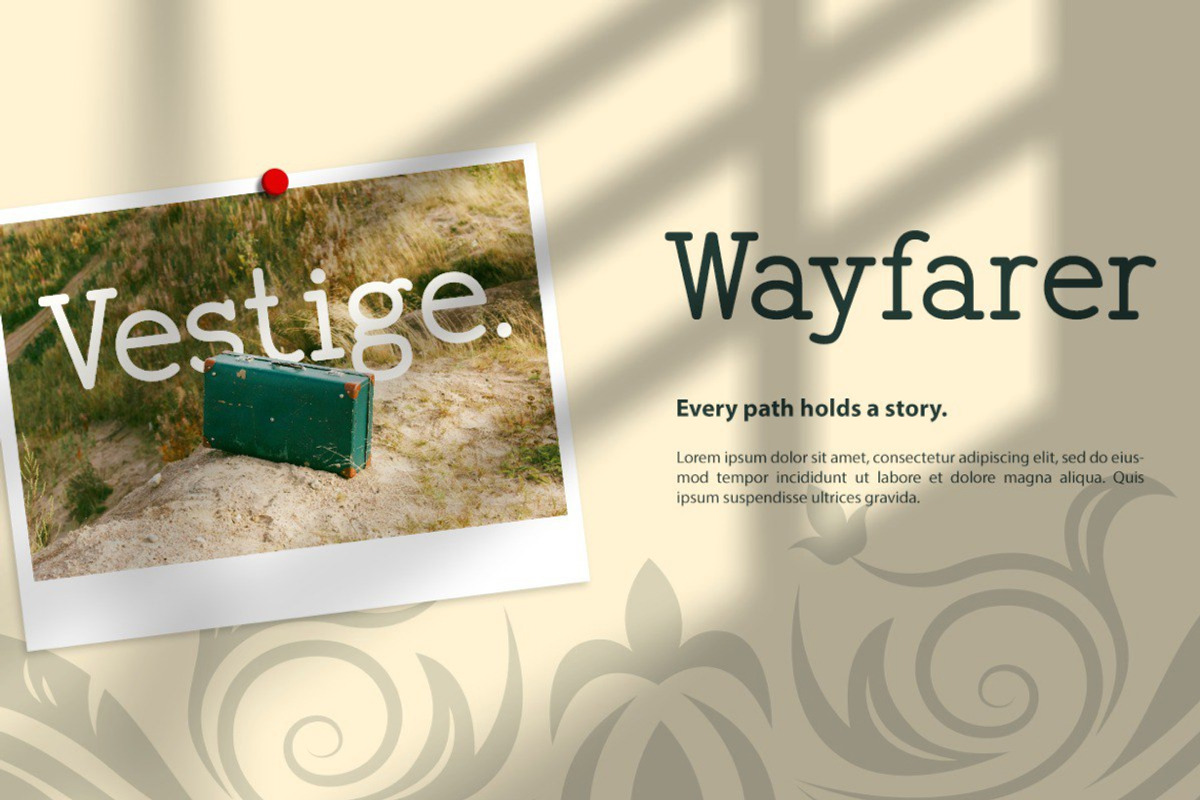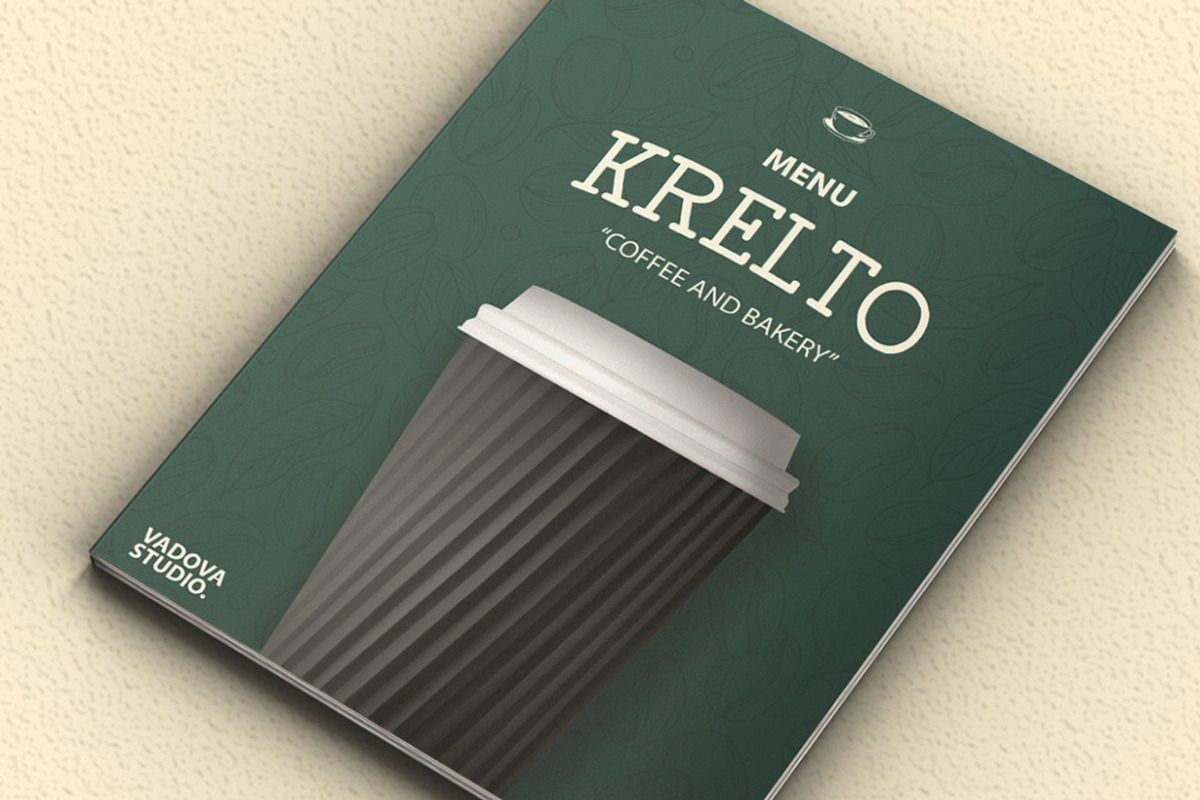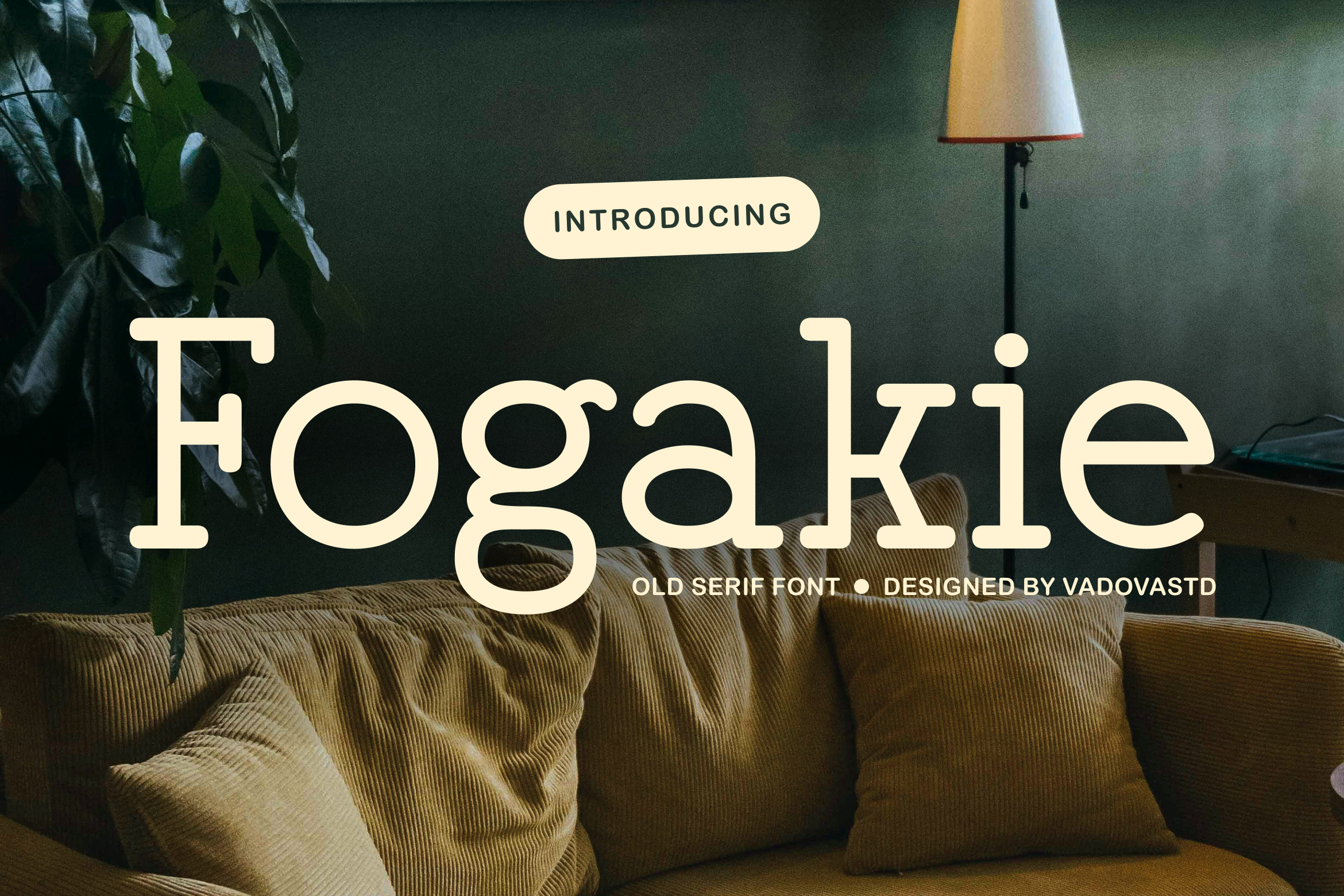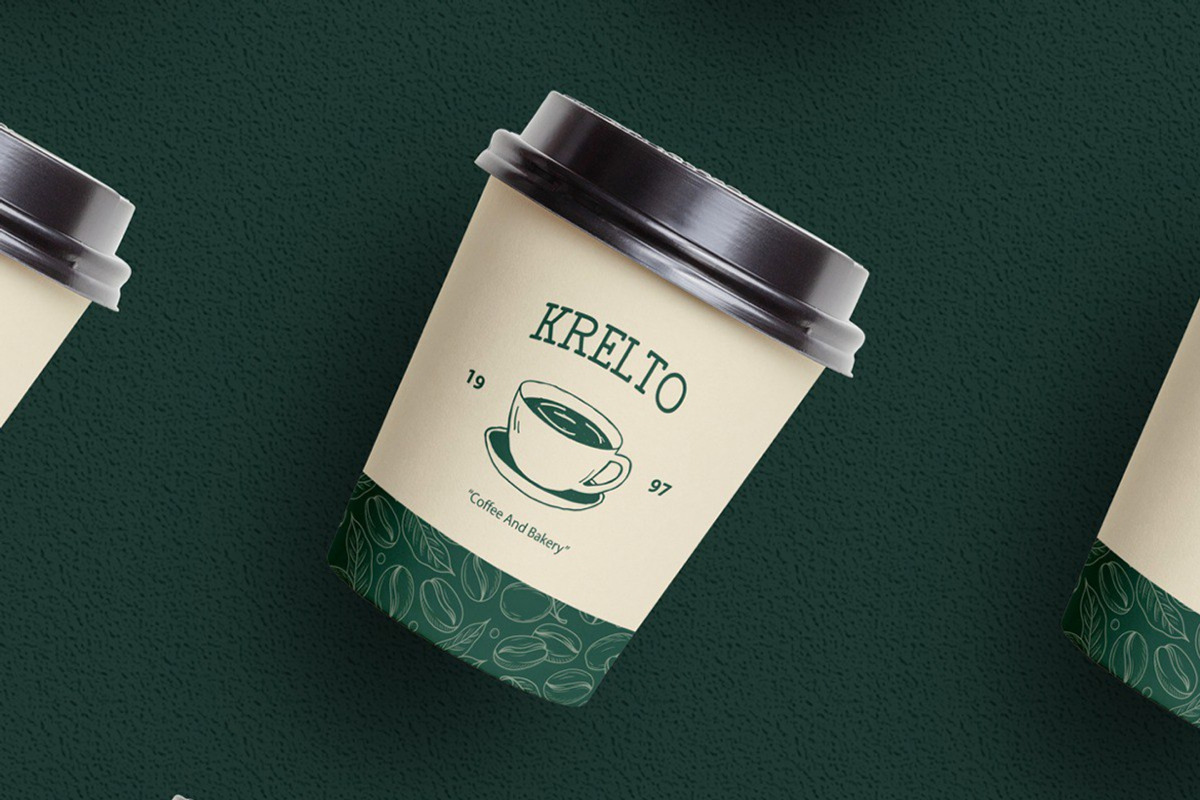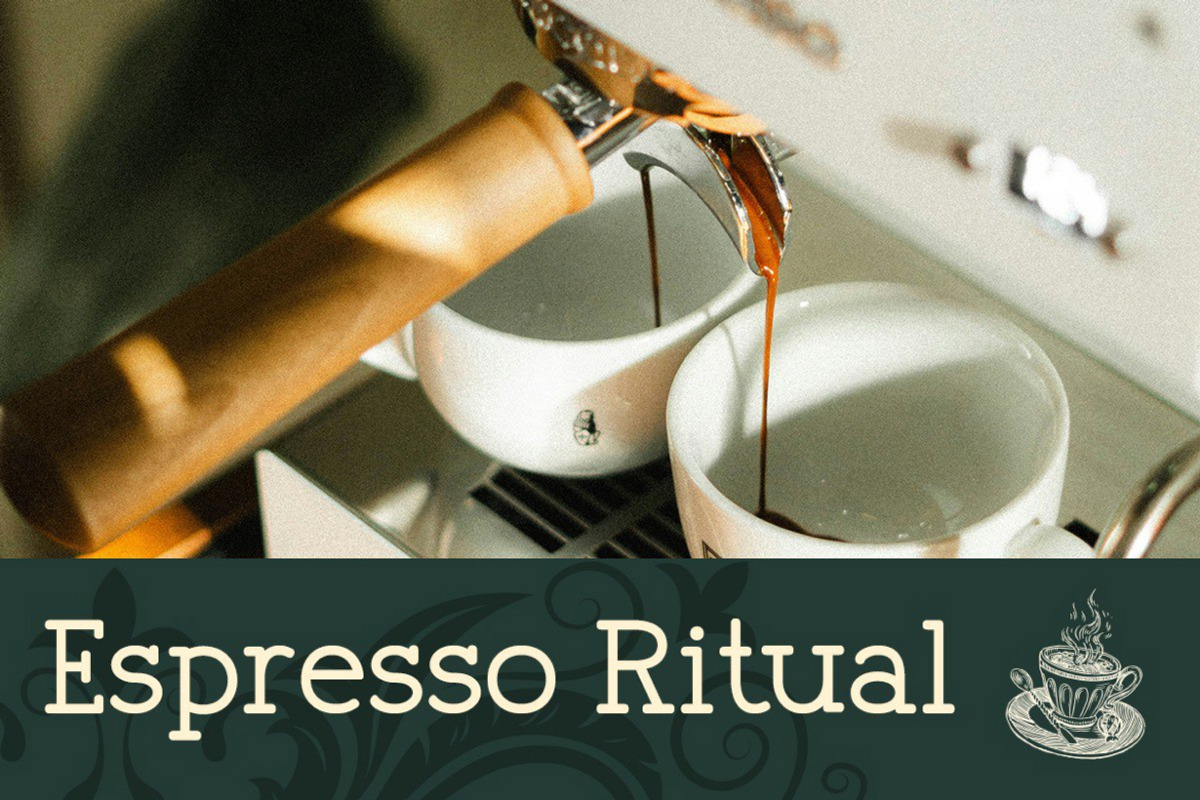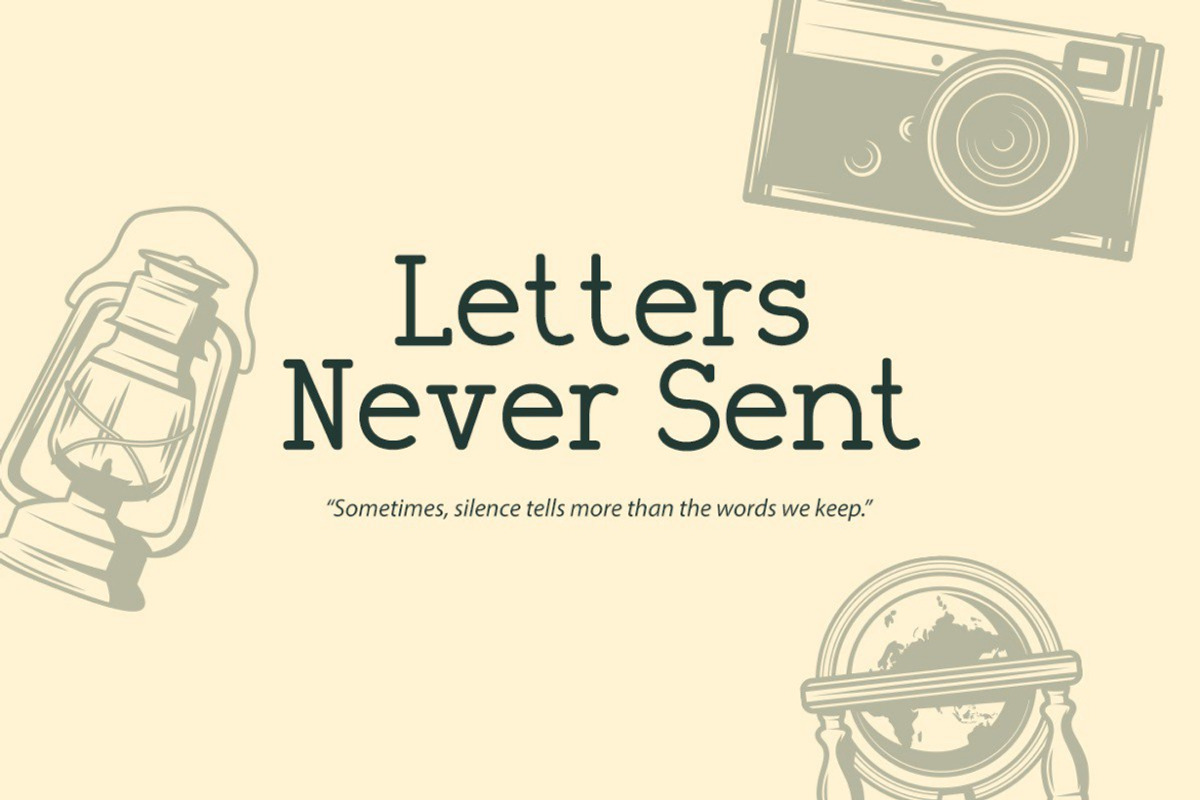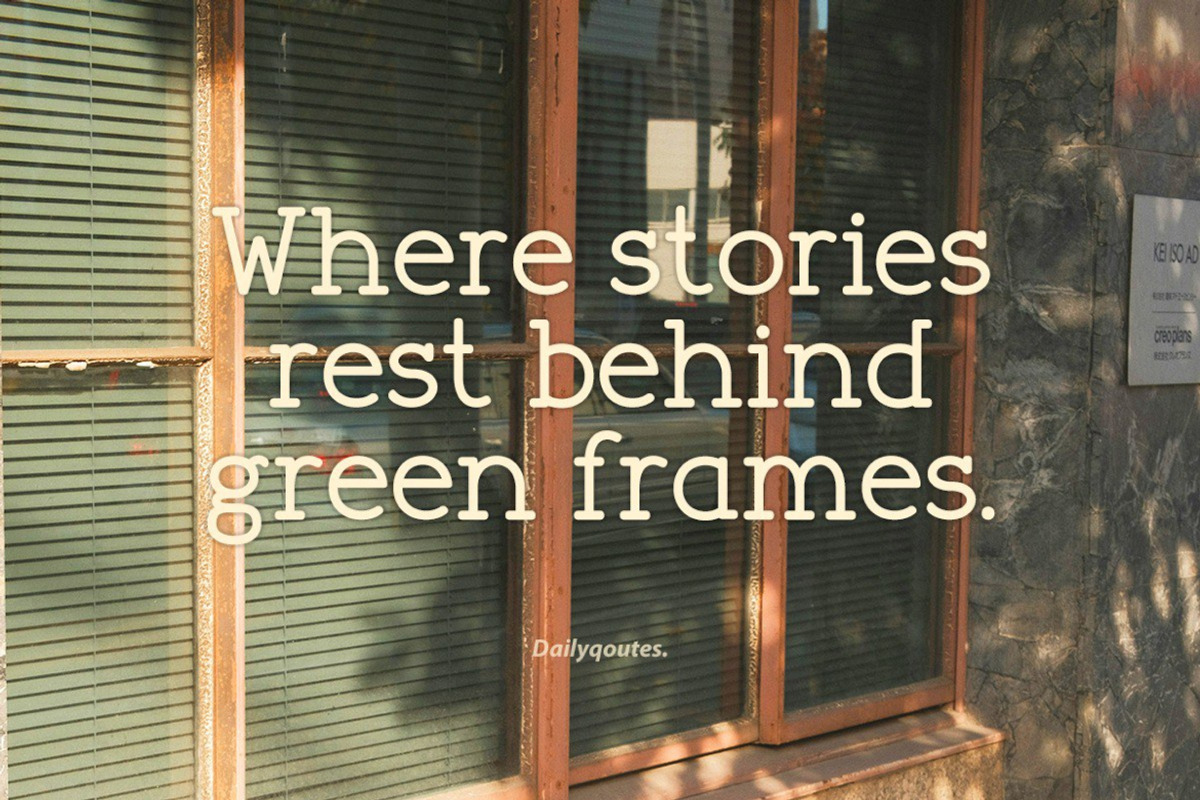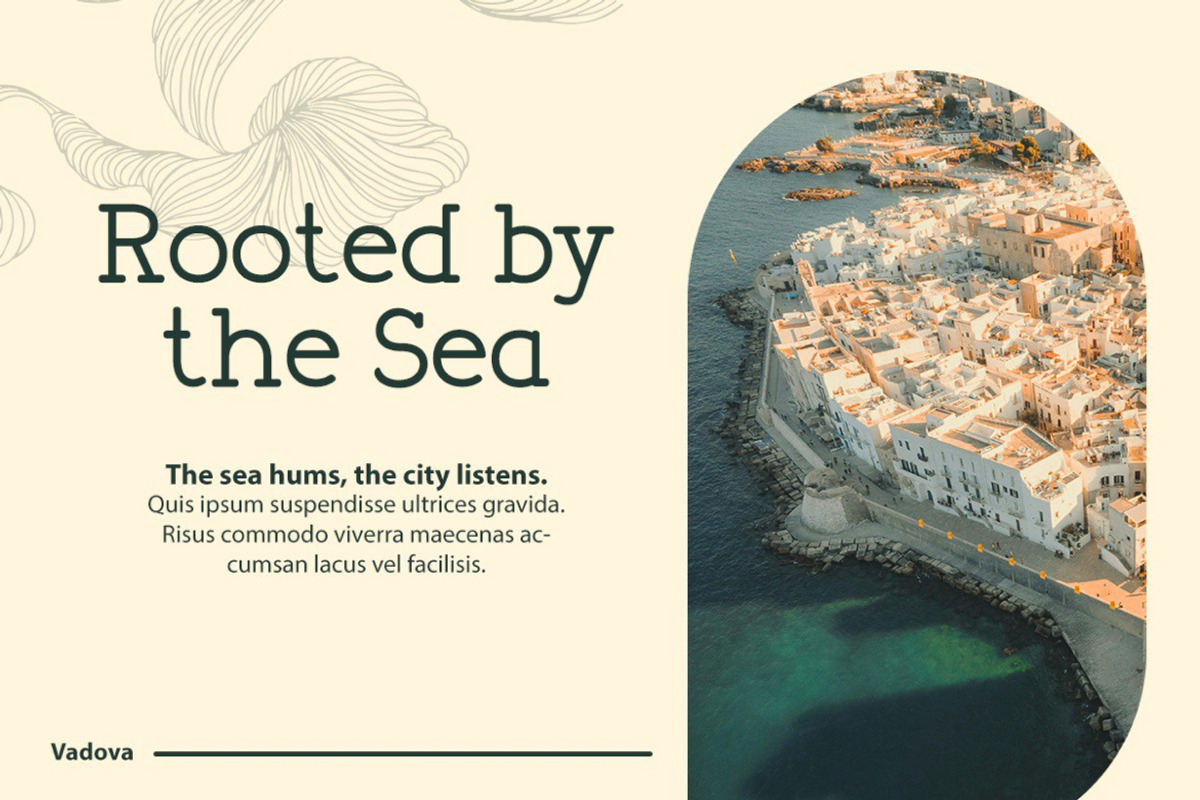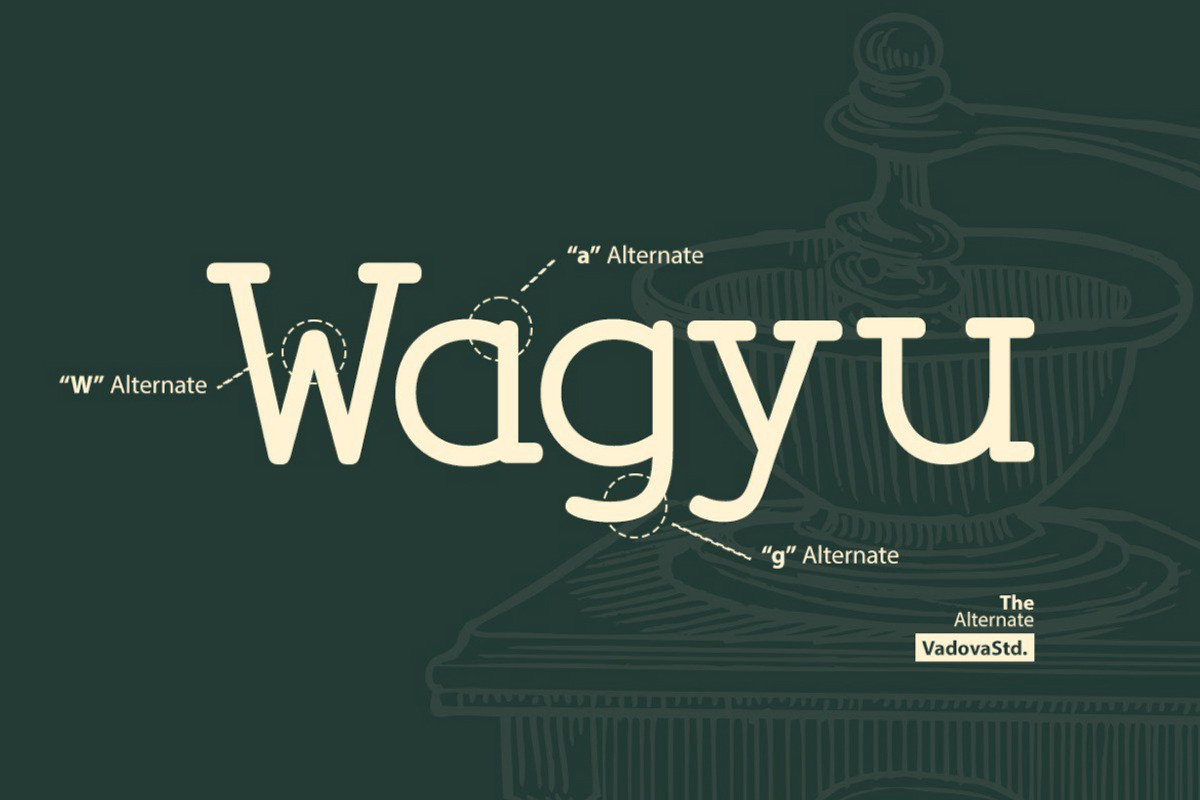
Fogakie – Old Serif Typeface
Fogakie is an old-style serif typeface featuring refined strokes, rounded terminals, and a gentle vintage touch that feels warm and timeless. Designed with soft curves and subtle serif details, this font blends classic charm with modern usability, making it suitable for branding, editorial layouts, packaging, and lifestyle visuals.
Its balanced letterforms and smooth contours create a comfortable reading experience while still adding personality and elegance to any design. Fogakie comes with uppercase and lowercase characters, numerals, punctuation, and a set of stylish alternates for added typographic flair.
Crafted for creators who appreciate character-rich serif fonts, Fogakie delivers nostalgic beauty with contemporary readability—perfect for projects that need both sophistication and warmth.
- Old-style serif design with soft rounded edges
- Uppercase & lowercase character sets
- Alternates for selected characters (“a”, “g”, “w”, etc.)
- Full numeral and punctuation set
Best Uses for Fogakie
- Editorial layouts & magazine headlines
- Branding and identity for lifestyle or boutique businesses
- Packaging for food, handmade goods, or artisanal products
- Logos with a classic yet friendly personality
- Posters, title designs, and typographic compositions
- Home decor quotes and warm visual storytelling
- Retro-modern design themes
- Clean readability with a soft humanist feel
- Elegant spacing for refined visual hierarchy
- Great for both display headlines and medium-length text
- Beautiful alternates for custom-style typography
Bring classic charm to your designs with Fogakie—crafted for warmth, elegance, and personality.